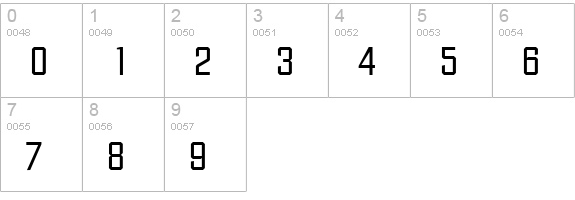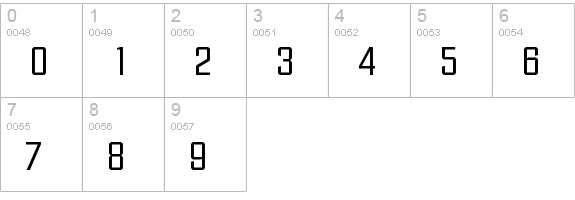
Facet Regular Font Details
Facet Regular is the standard, neutral variant in the Facet typeface family \xE2\x80\x94 well suited to general body text, paragraphs, and standard typographic work.
Facet Regular is a modern and versatile font that exudes elegance and sophistication. With its clean lines and balanced proportions, it is perfect for a wide range of design projects, from logo and branding to editorial and web design. The typeface features a timeless appeal, making it suitable for both contemporary and classic applications. One of the standout features of Facet Regular is its versatility. It effortlessly combines a sense of professionalism with a touch of creativity, making it a favorite among designers and typographers alike. The characters are meticulously crafted, ensuring legibility at any size or resolution. But what sets Facet Regular apart from other fonts is that it is not only visually stunning, but also free. Yes, you read that right – this exceptional font is freely available to download at FontsMarket.com. This means that you can enhance your designs with this remarkable typeface without having to worry about any additional cost. Whether you are working on a personal project or a commercial endeavor, Facet Regular is a font that will elevate your designs to the next level. Its versatility, elegance, and availability make it a valuable addition to any designer's toolkit. So why wait? Head over to FontsMarket.com and download Facet Regular today to unlock the true potential of your designs.